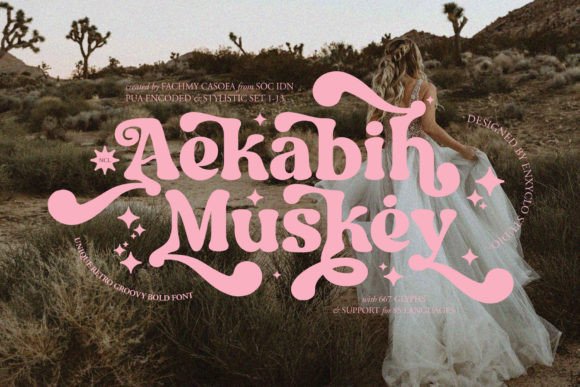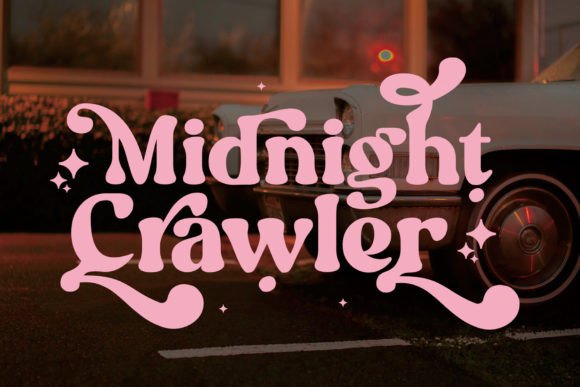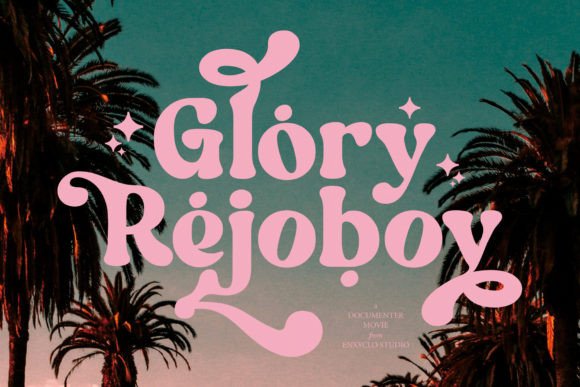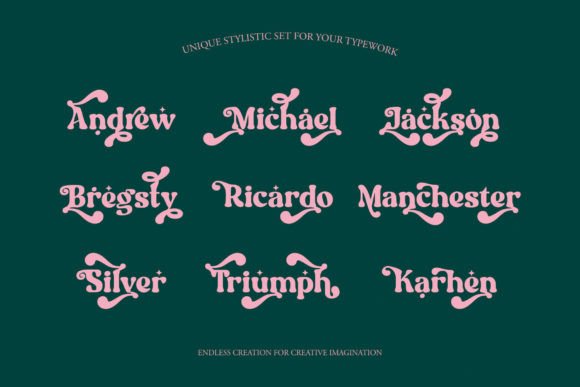
Aekabih Muskey Font: Groovy Retro Font for Posters & Branding
About the Aekabih Muskey Font
Explore the possibilities with Aekabih Muskey Font, a font that offers both beauty and functionality. AEKABIH MUSKEY is a retro groovy bold font. Masterfully designed to become a true favorite, this font has the potential to bring each of your creative ideas to the highest level! It was purposely crafted to be used in large point sizes, although it doesn’t lose its magic in small point sizes. It is perfect for weddings, headlines, billboards, magazines, websites, titles, posters, branding, and logos. No matter the topic, this font will be an incredible asset to your fonts’ library, as it has the potential to elevate any creation. With this beautiful font, absolutely you can make your project stand out from the rest.
Aekabih Muskey Font Usage Examples
Aekabih Muskey Font Example